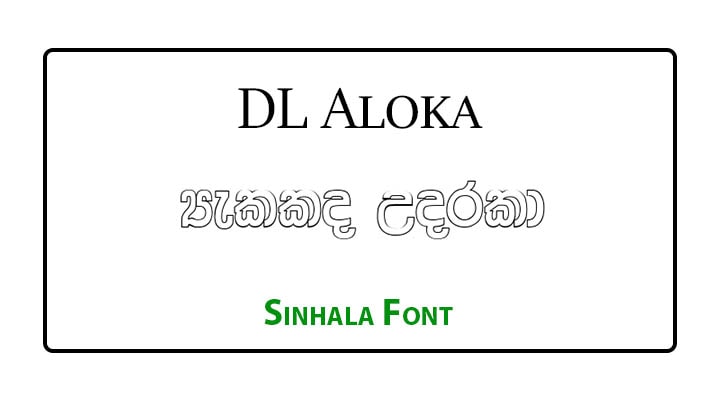
DL Aloka is a widely used Sinhala font that is popularly used for digital and print applications in Sri Lanka. Developed by Microsoft, it is designed to provide clear and aesthetically pleasing Sinhala script representation on computers and other devices. The font’s design includes a range of characters, consonants, vowels, and diacritics, making it suitable for accurately displaying Sinhala text.
DL Aloka is known for its legibility and versatility, making it an ideal choice for various purposes such as web content, documents, graphic design, and signage. Its widespread usage has made it a standard font for Sinhala typography, enabling efficient communication in the Sinhalese language, which is one of the official languages of Sri Lanka.
Preview of DL Aloka Sinhala Font
Simple Design
Suitable for Publication and Graphic Designing